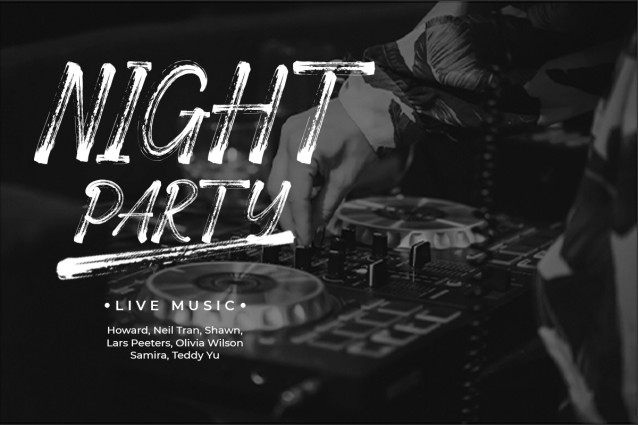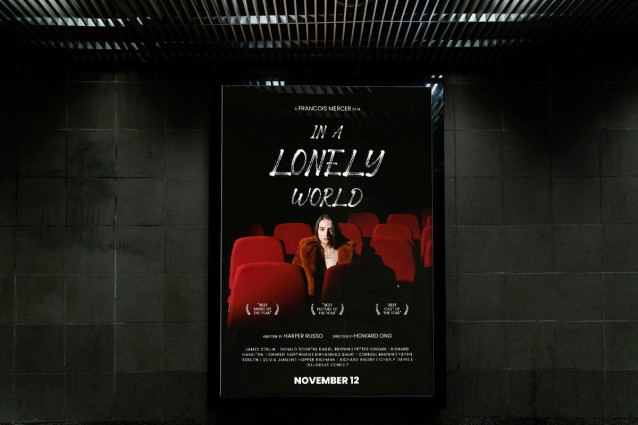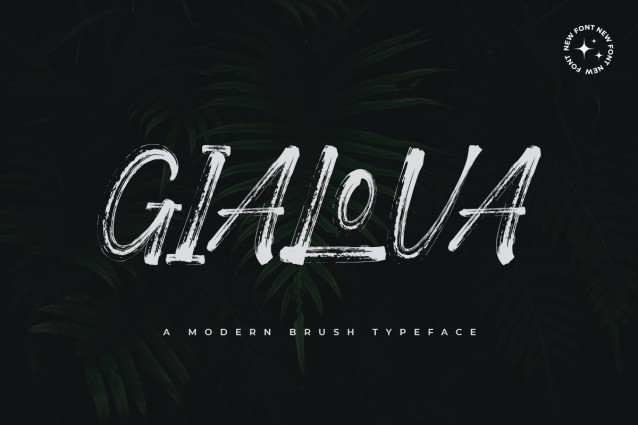
Gialova Brush Font
Gialova Brush Font was created to bring something different to brush font fans. This font has characteristics like bold fonts but is written using a brush. This results in incomplete strokes in most of the body letters. Even so, this font can be distinguished between letters. Gialova Brush Font is a legible font. Gialova Brush Font is a modern font. This font exudes a bold and charismatic impression. Giallova font is one of the best fonts for clothing item design. Its clean nature is very suitable to be combined with various clothing brands, such as jackets, t-shirts, and clothes. This can be text screen printing and branding tags to attract buyers. Entrepreneurs can use the Gialova Brush Font to sell their products. This font can use to write on posters promoting their products. This font is suitable for posters with music events and movies in theaters. In addition to printed posters, this font can complement product photo catalogs created for online promotion on social media, such as Instagram and Facebook. So, Gialova Brush Font is a digital and printable font. Our brush font collection is compatible to use as Figma fonts, Canva fonts, Freepik Fonts, and Adobe Fonts. They also work as Windows Fonts and Apple Fonts. For your social media needs, you can use and install fonts in our Brush font collection to use as Instagram Fonts, Facebook Fonts, and Twitter Fonts.